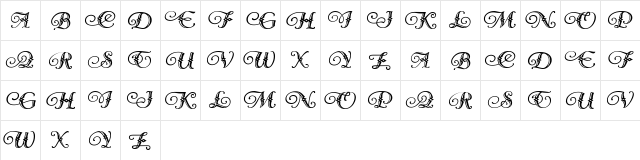
Diamond Dreams Regular Font Preview
Diamond Dreams Regular
Diamond Dreams Regular Font Details
Design Context for Diamond Dreams Typeface
Diamond Dreams is a composed and adaptable typeface that performs quietly and consistently across a wide range of design contexts.